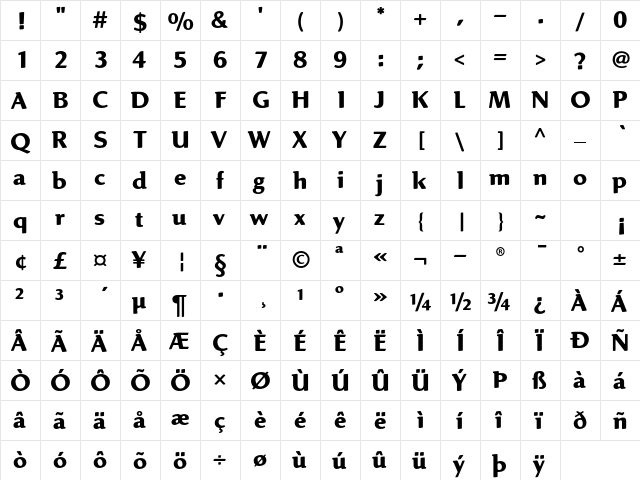
Linex Sweet Std Bold
Design Context for Linex Sweet Std Typeface
Linex Sweet Std offers clean, dependable letterforms without strong stylistic allegiance, making it a practical choice for designers who need flexibility. Its bold stroke weight gives it real presence on the page.